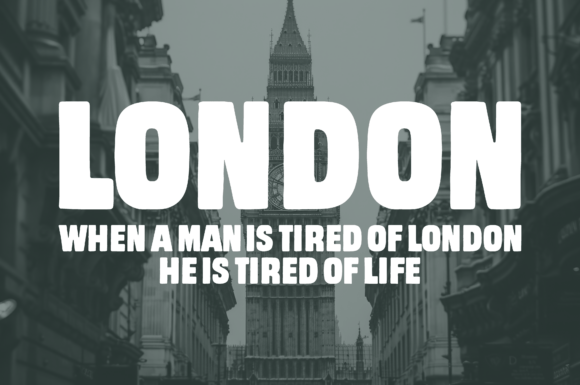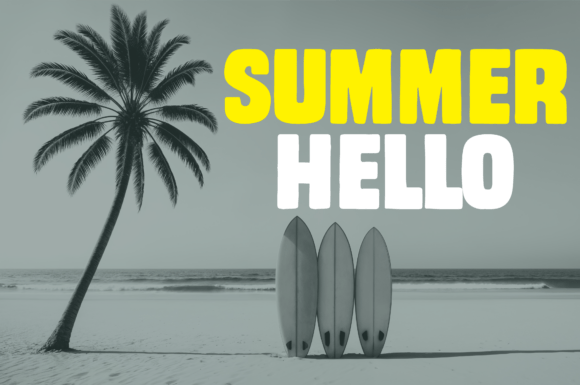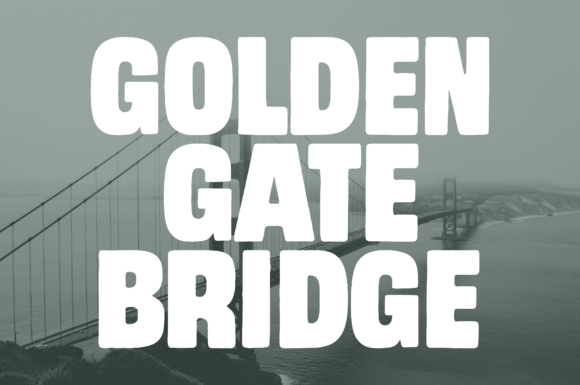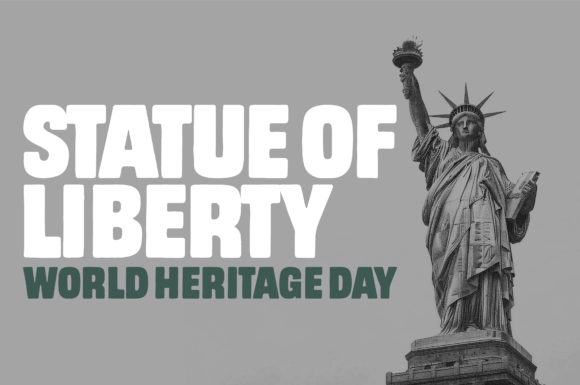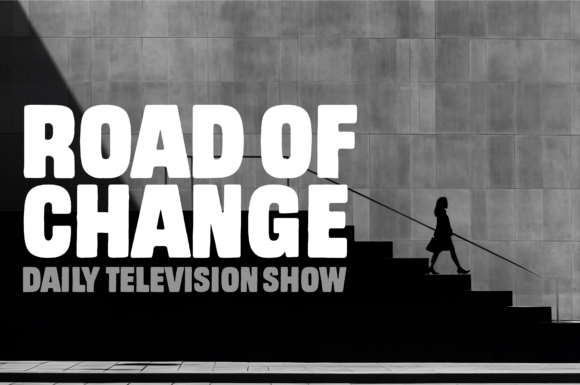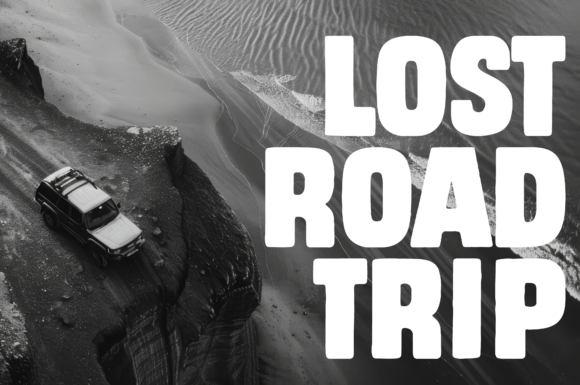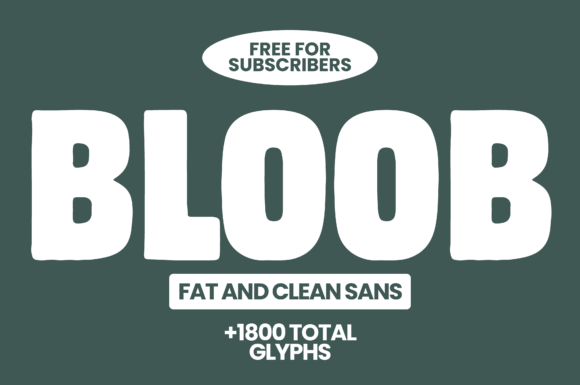
Bloob Font: A Bold Statement in Every Letter
In the world of modern design, typography plays a crucial role in capturing the essence of a brand or message. When it comes to making a statement, few fonts can match the uniqueness and playfulness of Bloob Font. This geometric sans serif font is designed to bring a fresh twist to your designs, whether you’re crafting logos, posters, headlines, or bold brand visuals.
What Makes Bloob Font Stand Out
Bloob Font boasts a distinctive combination of chunky curves, smooth forms, and minimalistic flair, making it a standout in the world of typography. Its geometric design ensures that each letter is not only visually appealing but also highly legible, even at larger sizes. This balance of form and function makes Bloob Font an excellent choice for designers looking to add character to clean layouts without sacrificing clarity.
Dynamic Styles for Versatility
Bloob Font offers three dynamic styles to cater to a wide range of design needs: Regular, Italic, and Reversed Italic. Each style has been carefully crafted to provide a unique feel while maintaining the font’s signature groovy yet clean aesthetic.
• Regular: The Regular style provides a strong, structured look that’s perfect for creating a solid foundation in your designs. It’s ideal for headlines, titles, and any text that needs to convey confidence and stability.
• Italic: For a sense of movement and energy, the Italic style is the way to go. It adds a dynamic, forward-moving feel to your text, making it perfect for designs that require a bit of flair and personality.
• Reversed Italic: For those looking to add an unexpected edge to their designs, the Reversed Italic style offers a rare and intriguing option. It provides a unique twist on traditional italic forms, adding a touch of sophistication and creativity to your work.
Bloob Font is a versatile tool that can elevate a wide range of design projects. Here are a few ways designers and crafters can make the most of this unique font:
• Logo Design: Use Bloob Font to create memorable and impactful logos that stand out from the crowd. Its bold, geometric design ensures that your logo will be noticed and remembered.
• Poster Design: Add a playful touch to your posters with Bloob Font. Its chunky curves and smooth forms make it perfect for headlines and titles that need to grab attention.
• Branding and Packaging: For brands looking to make a statement, Bloob Font offers a fresh and modern approach to typography. Use it to create bold brand visuals that reflect your company’s personality and values.
Why Choose Bloob Font?
In a sea of fonts, Bloob Font stands out for its unique blend of playfulness and functionality. Here are a few reasons why designers and crafters should consider adding Bloob Font to their toolkit:
• Unique Aesthetic: Bloob Font offers a distinctive look that’s hard to find in other fonts. Its geometric design, chunky curves, and smooth forms make it a standout in any design.
• Versatility: With three dynamic styles to choose from, Bloob Font can be adapted to a wide range of design projects and styles.
• Legibility: Despite its bold and playful design, Bloob Font remains highly legible, even at larger sizes. This makes it perfect for use in headlines, titles, and other display text.
Bloob Font is more than just a typeface – it’s a design statement. With its bold, geometric design and playful twist on modern typography, it’s the perfect tool for designers and crafters looking to elevate their work. Whether you’re creating logos, posters, headlines, or bold brand visuals, Bloob Font offers a fresh and modern approach to typography that’s sure to make your designs stand out.
So why settle for ordinary when you can make a bold statement with Bloob Font? Explore its dynamic styles, experiment with its unique aesthetic, and discover how this geometric sans serif font can take your designs to the next level.